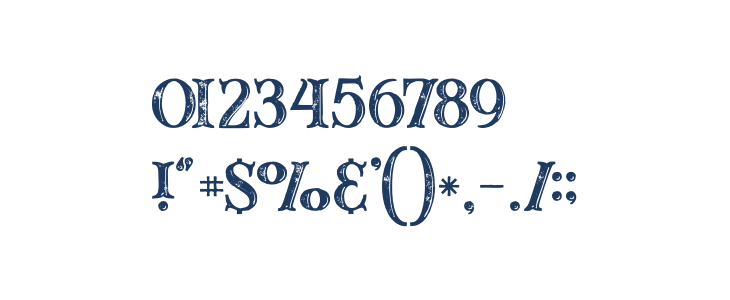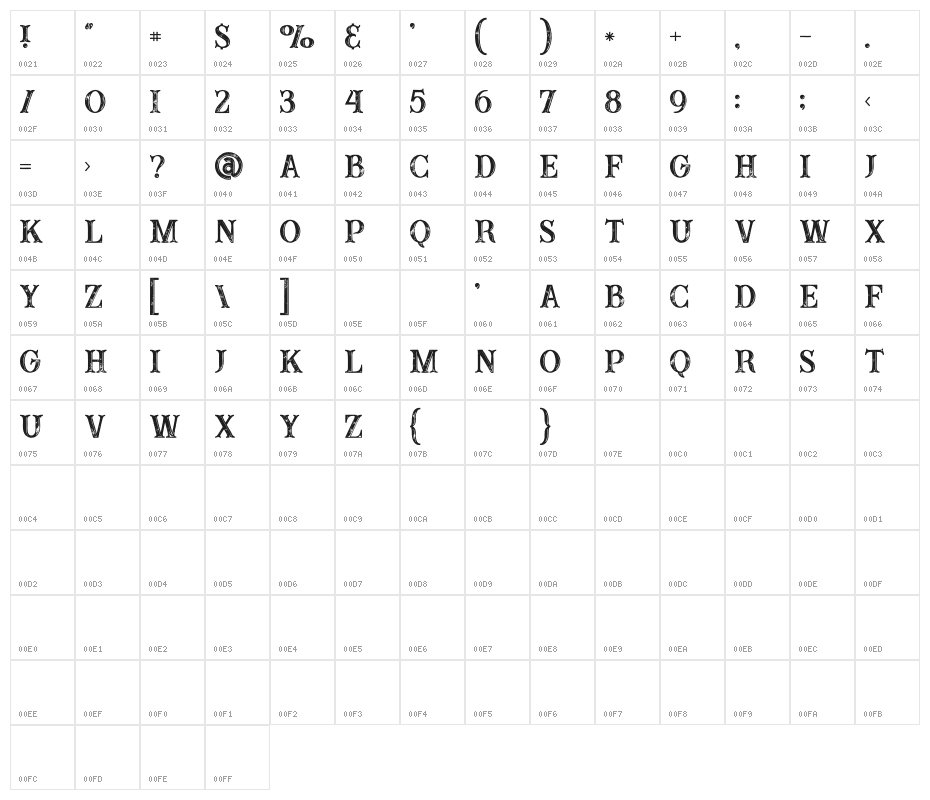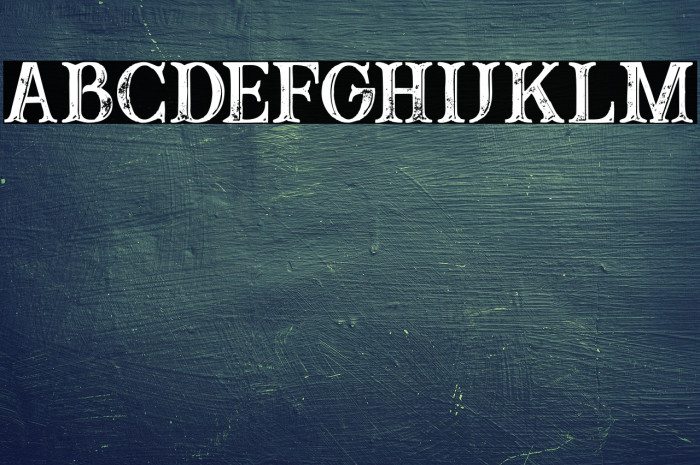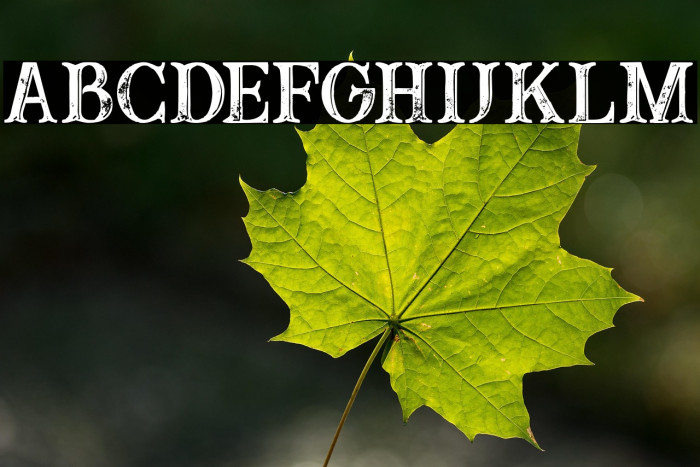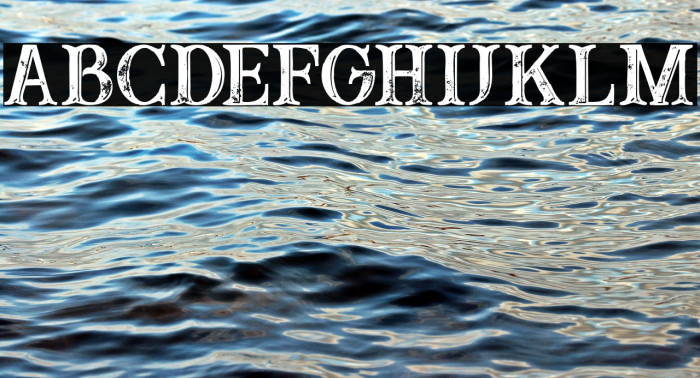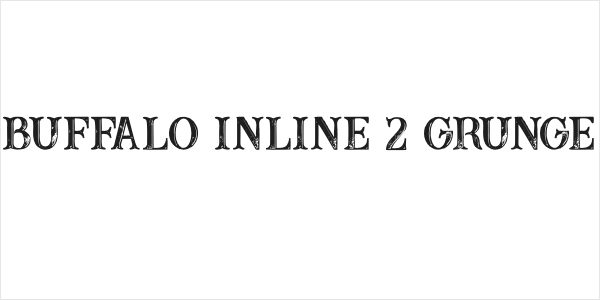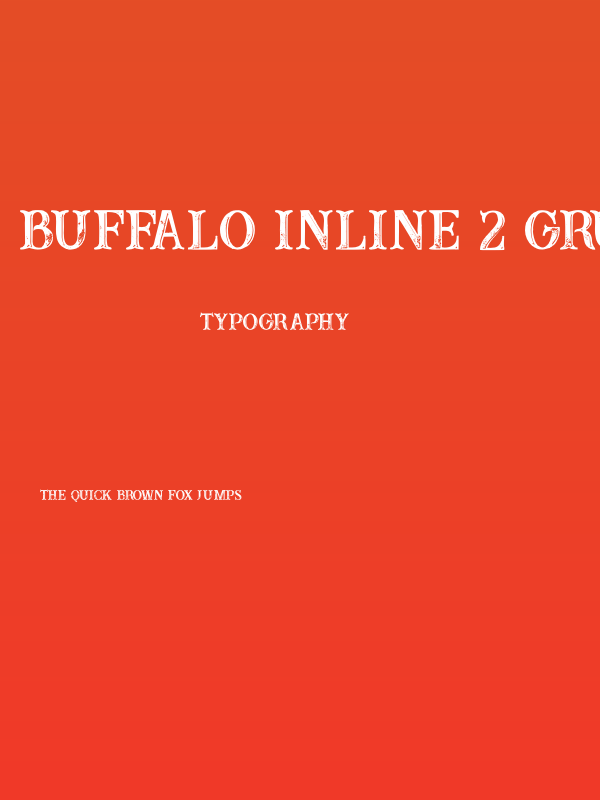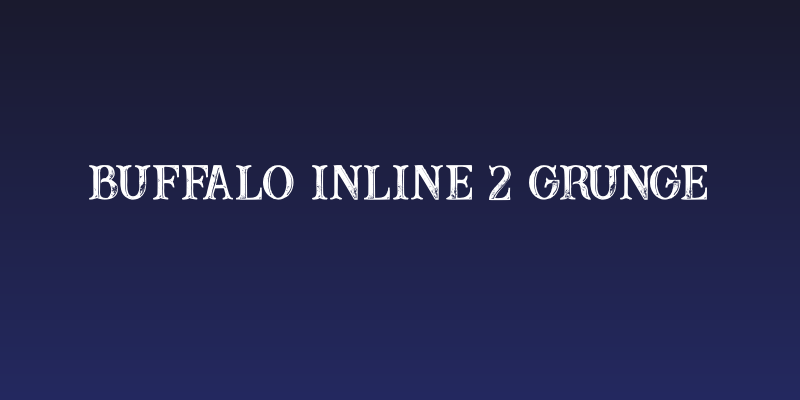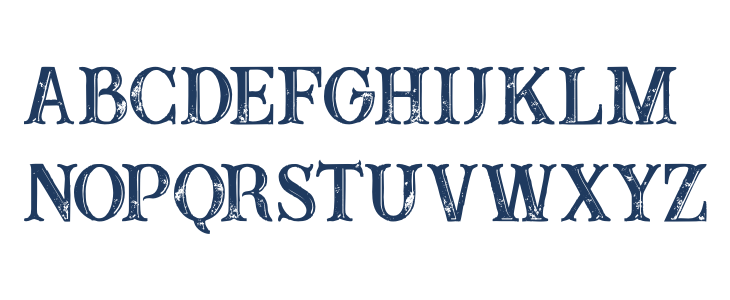
Buffalo Inline 2 Grunge Font
Buffalo Inline 2 Grunge Description
This font features a bold, distressed style with a grunge texture that gives it a rugged and worn appearance. The characters are serifed, with each letter exhibiting a unique, weathered look that adds character and depth. The uppercase and lowercase letters maintain a consistent design, while the numbers and special characters follow the same distressed theme. This font is ideal for creating a vintage or industrial aesthetic, perfect for projects that require a bold and impactful visual statement.
Overall StyleVintage, Grunge
Proposed ProjectsIdeal for vintage posters, album covers, branding for rustic or industrial-themed products, and any design requiring a bold, textured look.